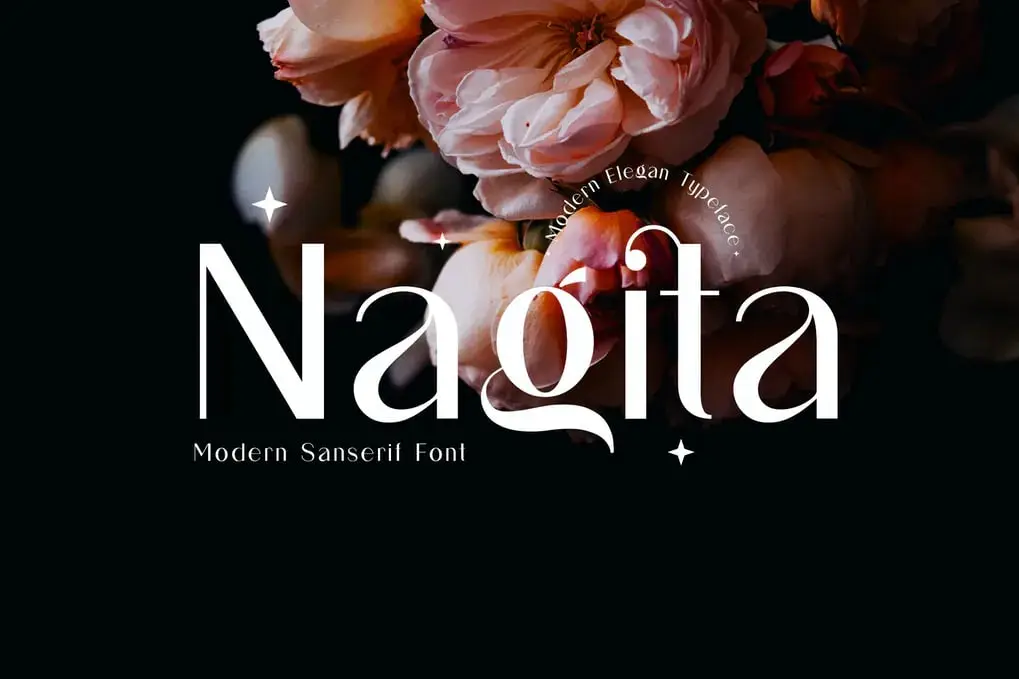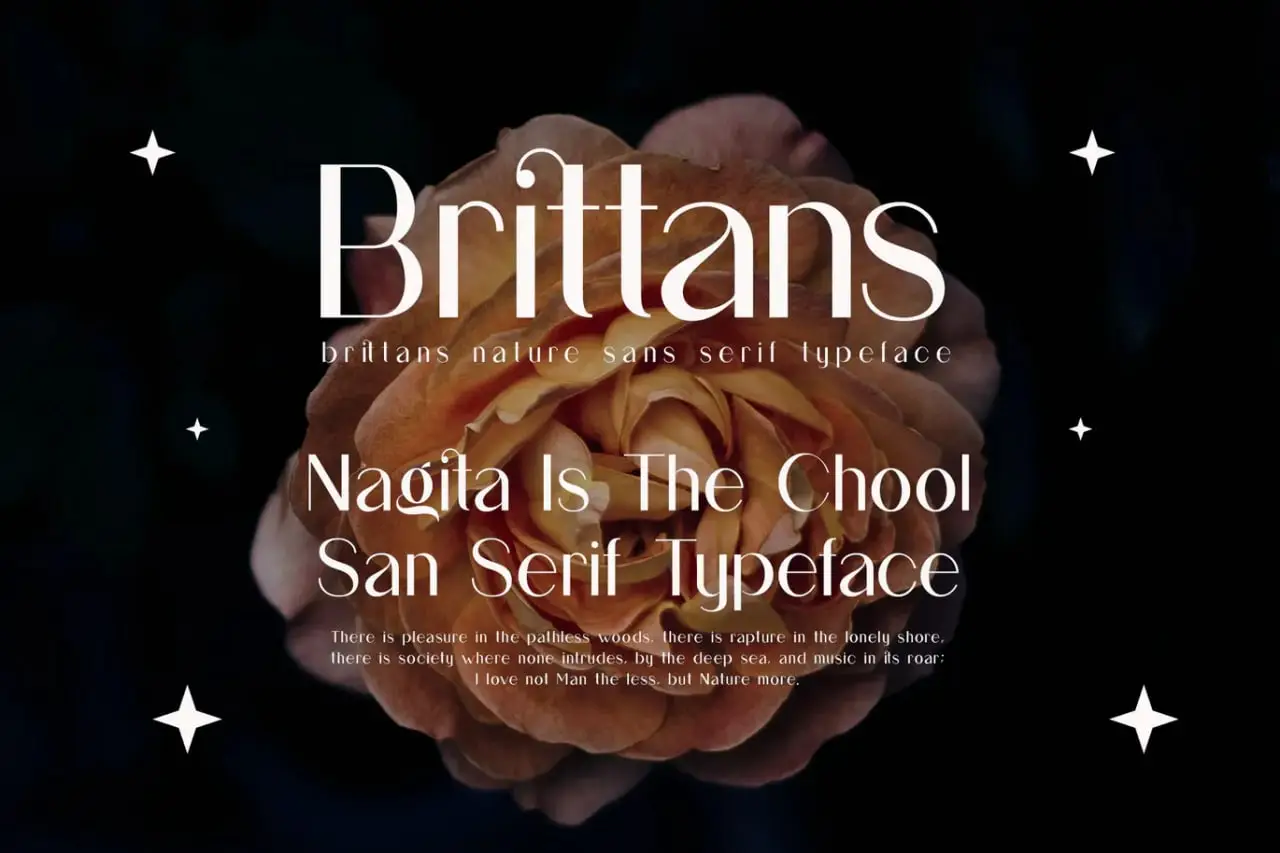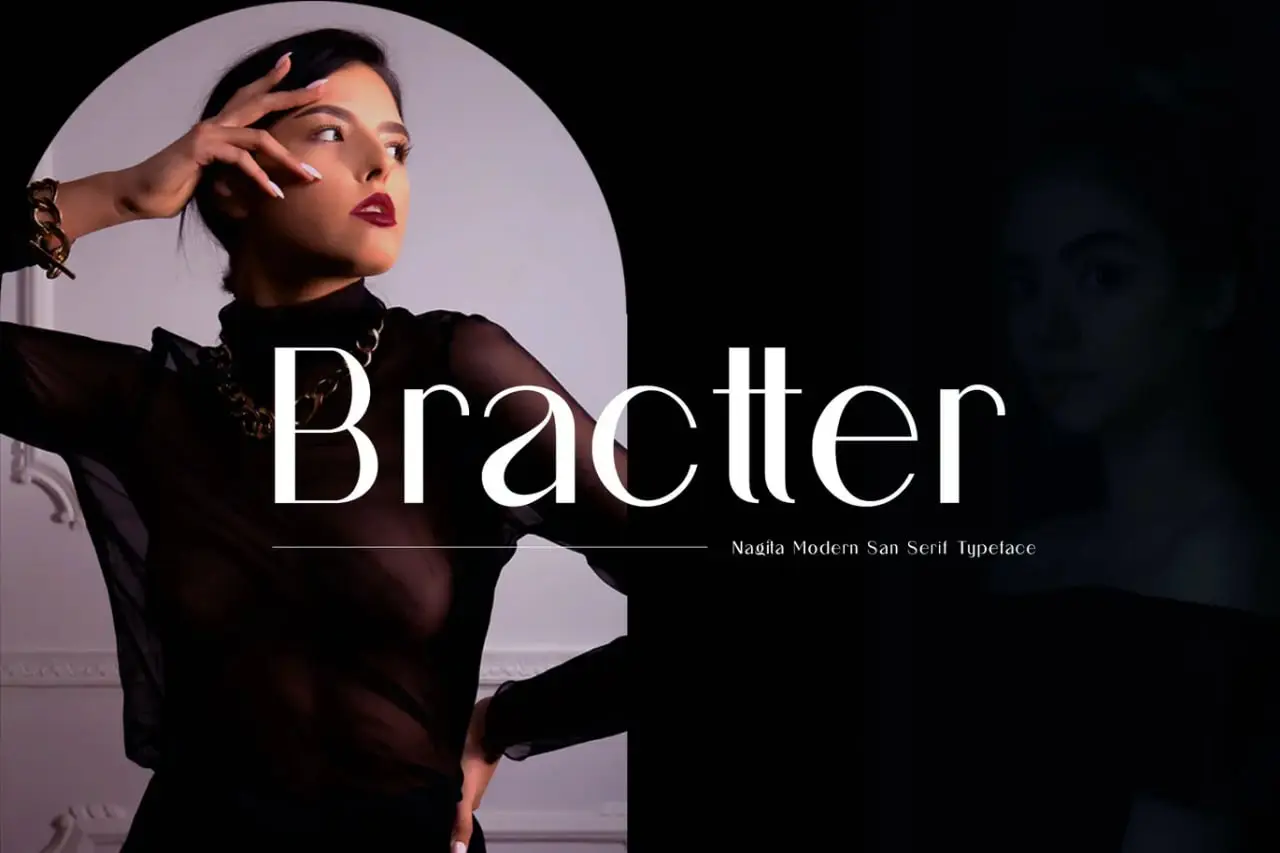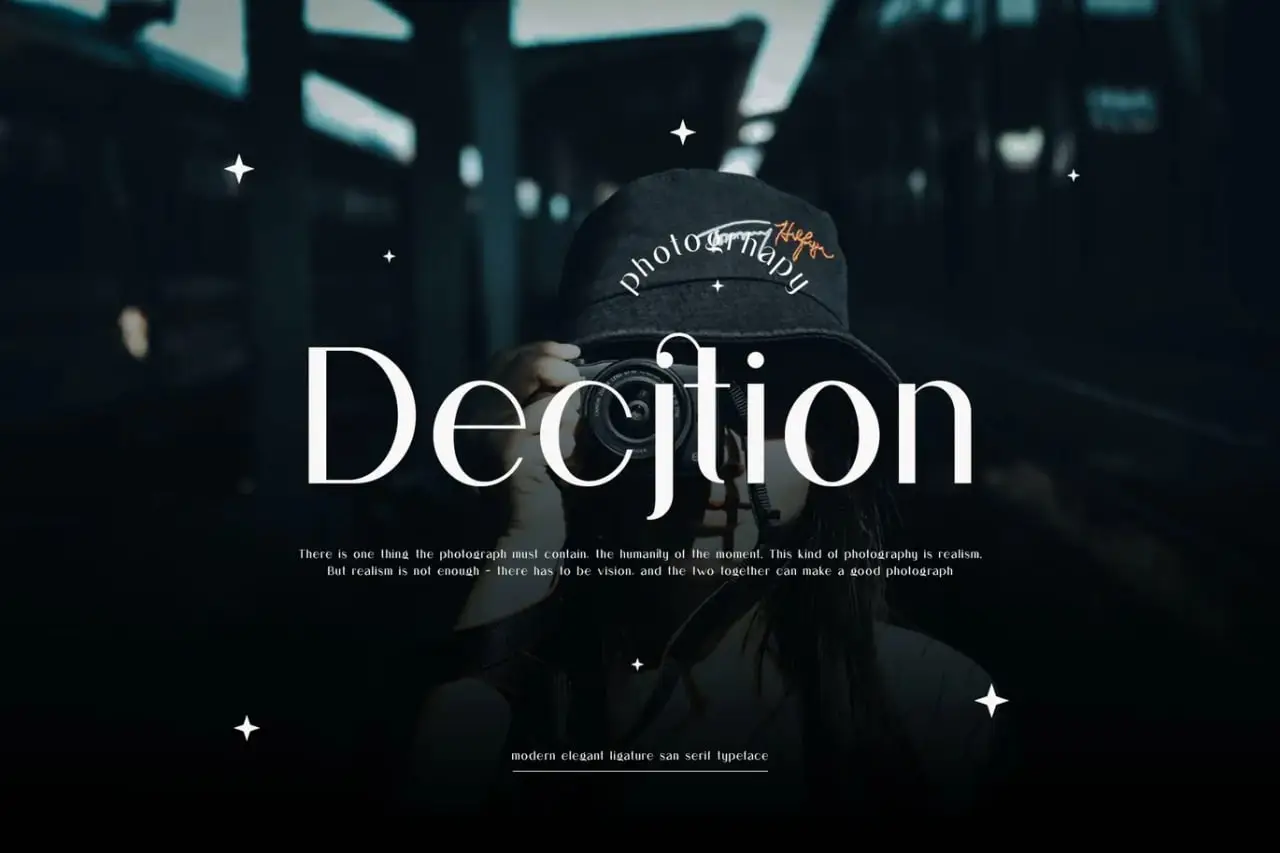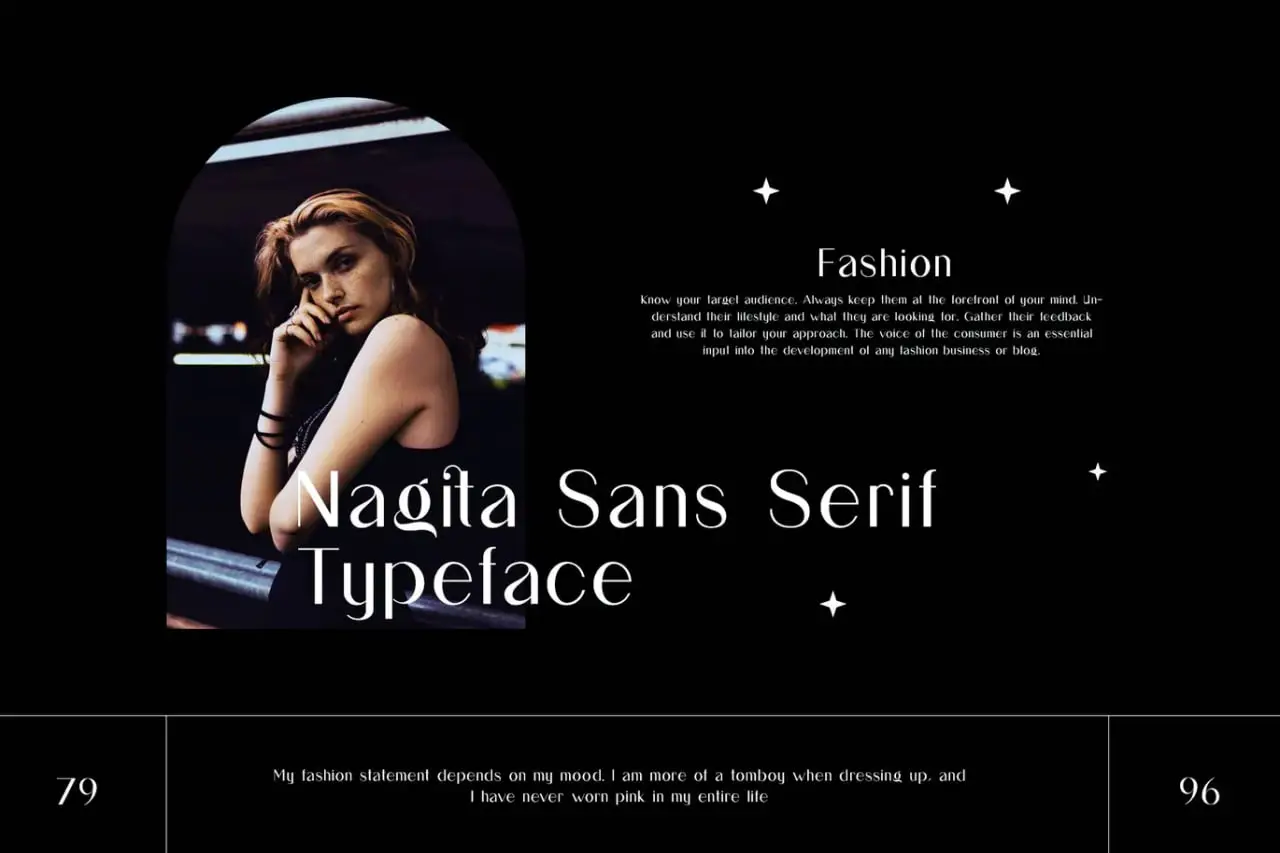
Alfinart-Nagita Sans Serif Font
Introducing the Alfinart-Nagita Sans Serif Font, a modern typeface that blends elegance with simplicity. This font is perfect for a variety of design projects, from branding and logos to web and print materials.
• Weights: Light, Regular, Medium, Bold
• Ideal for logo design and branding projects.
• Great for web design, ensuring readability on various devices.
• Perfect for print materials like brochures and business cards.